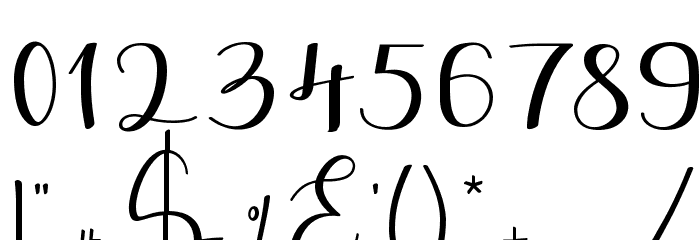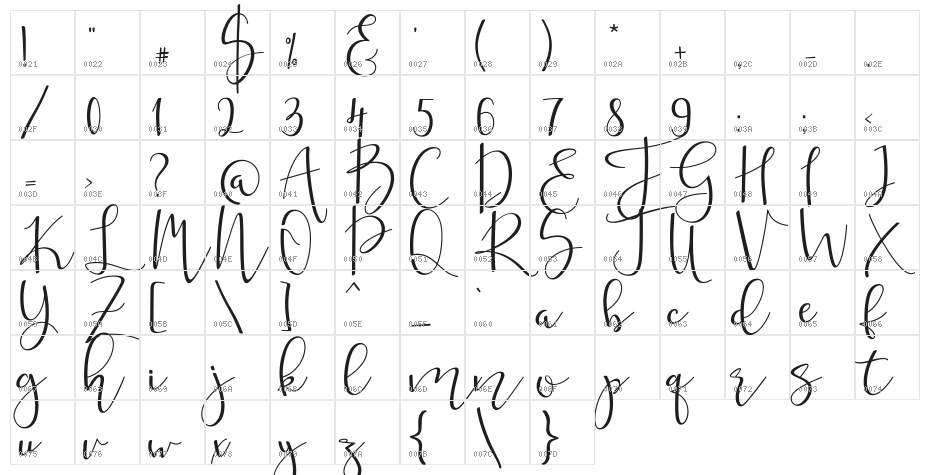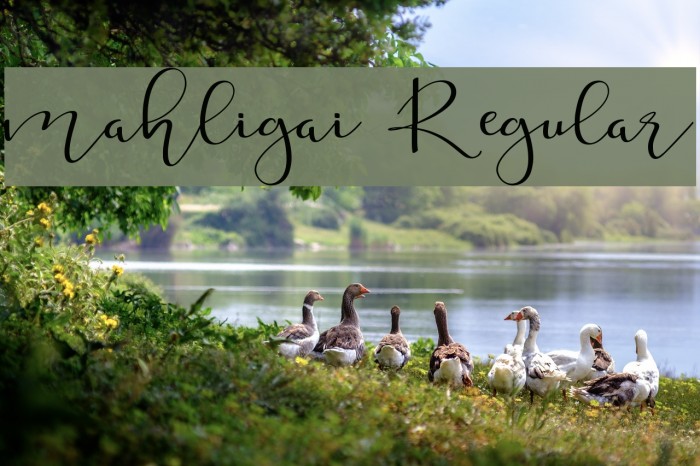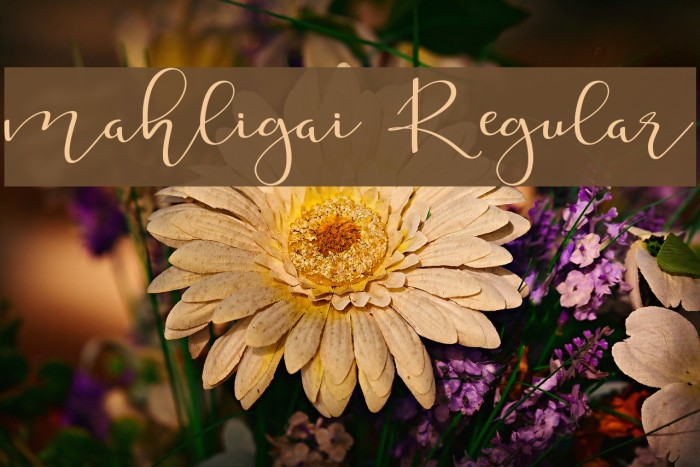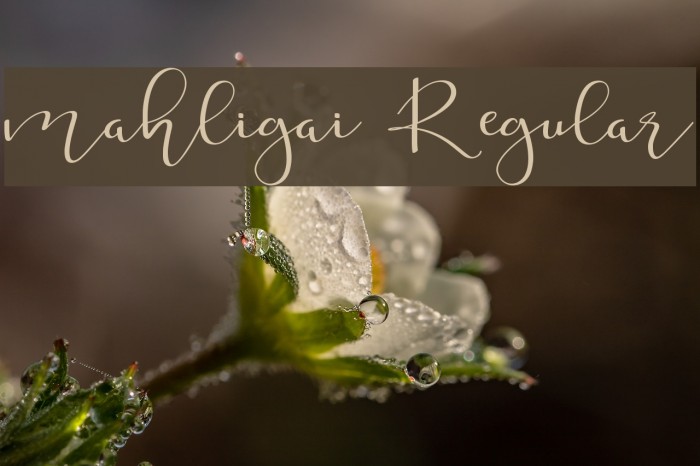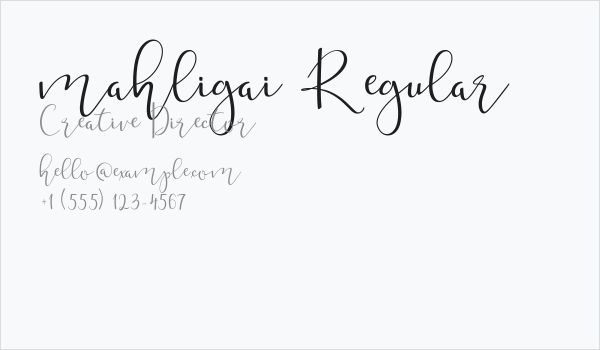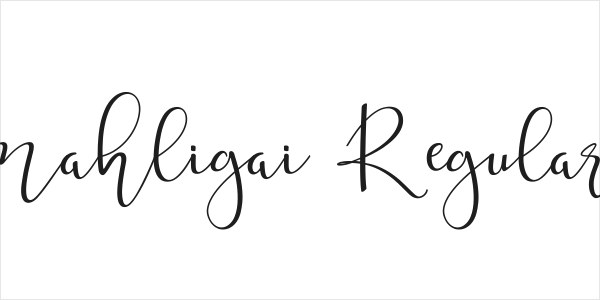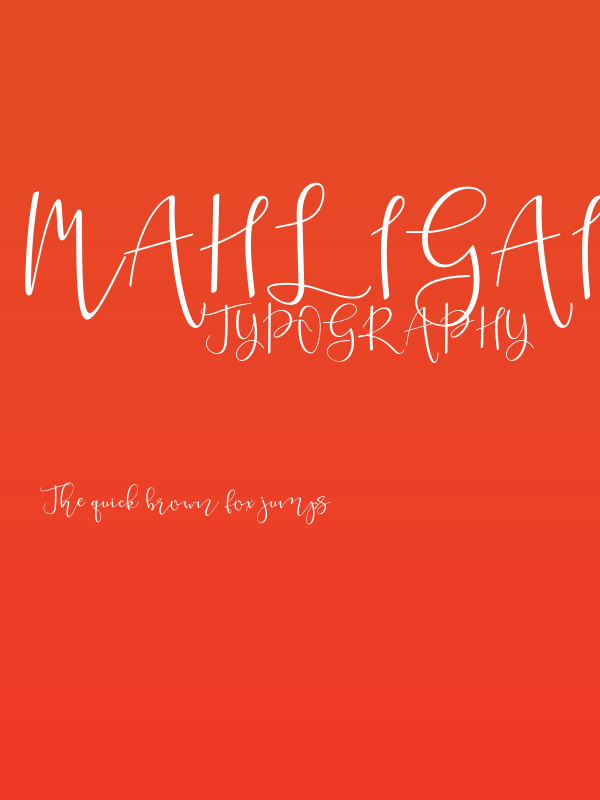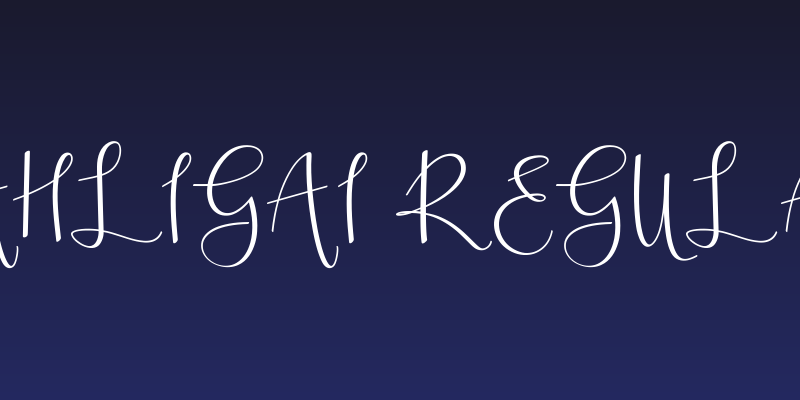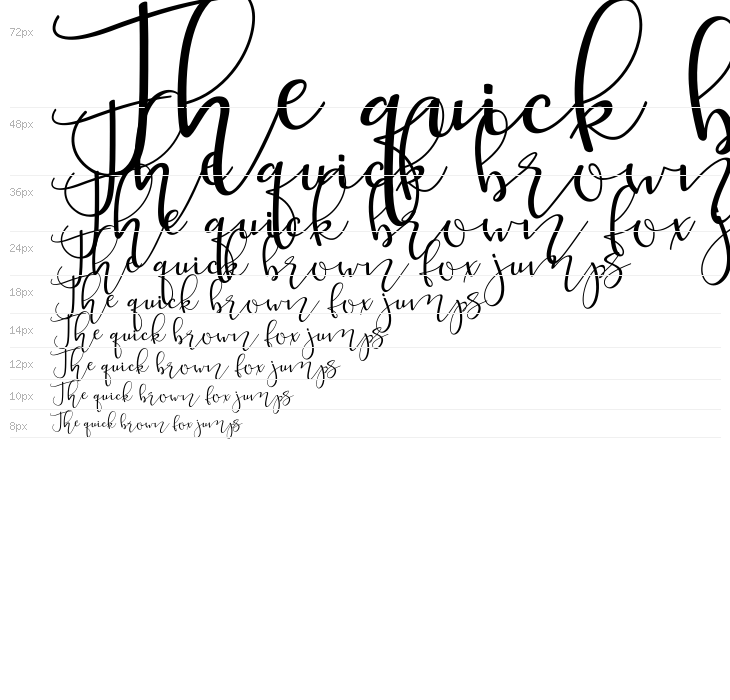
mahligai Regular Font
mahligai Regular Description
This font features an elegant and flowing script style, characterized by its smooth, cursive lines and graceful curves. The uppercase letters exhibit a sophisticated flair with extended strokes and loops, while the lowercase letters maintain a consistent fluidity that enhances readability. The numerals are distinct and stylish, complementing the overall aesthetic. Special characters are thoughtfully designed to match the font's elegant theme, making it suitable for creative and formal applications.
| Proposed Projects | Ideal for wedding invitations, greeting cards, branding, and elegant logo designs. |